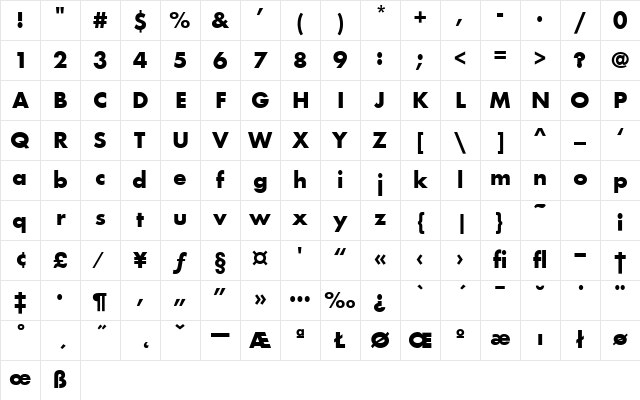
Fusion Bold Free Font
Fusion Bold
Design Context for Fusion
Fusion is a composed and adaptable typeface that performs quietly and consistently across a wide range of design contexts. Its bold stroke weight gives it real presence on the page.
Pro Tip: Use Fusion in both headline and body roles to test its range before committing to a single application.